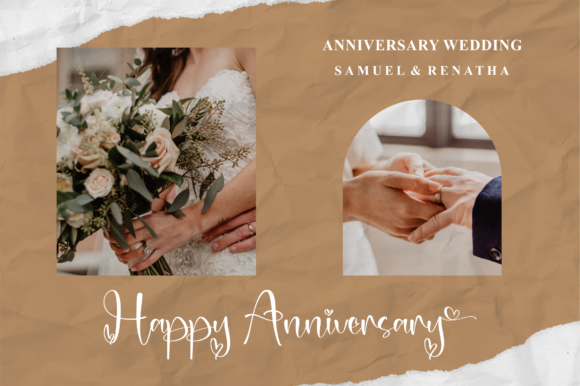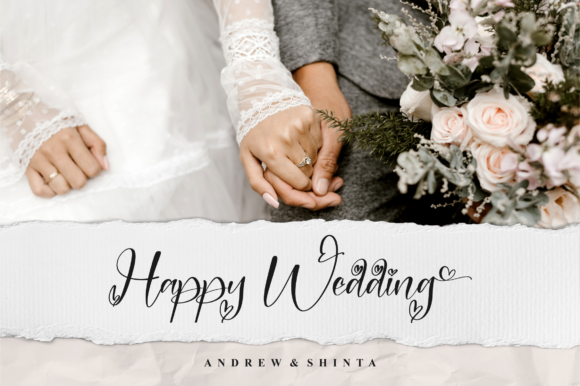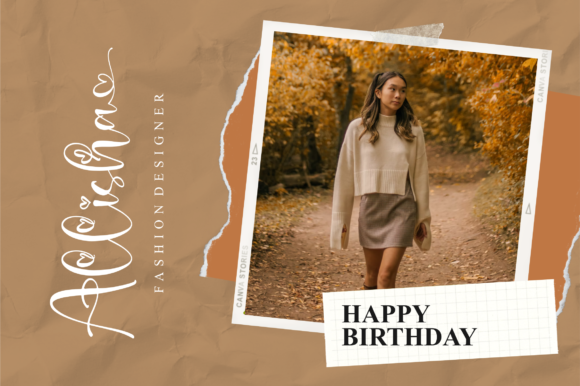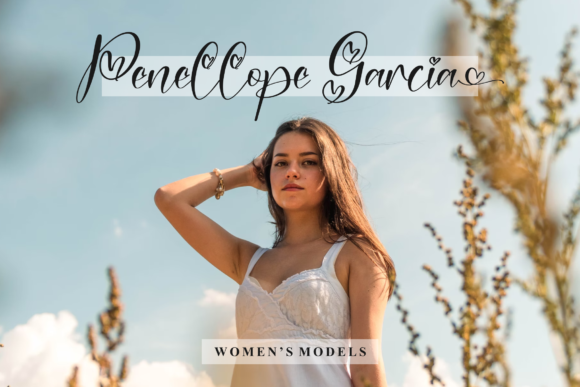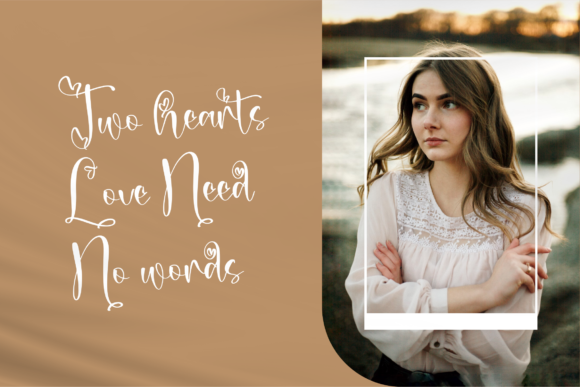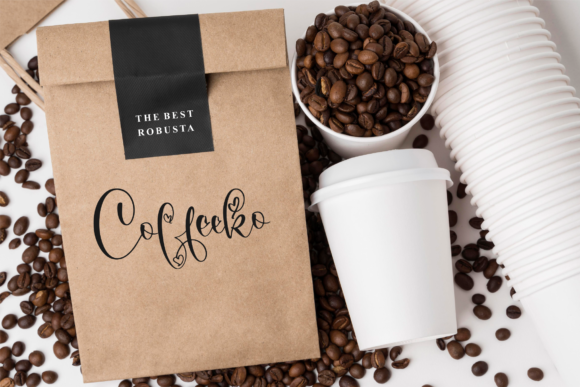
Introduction to Malista Font
Malista is a gorgeous and delicate script font.
It is a suitable for any projects such as: logos, branding projects, homeware designs, product packaging, mugs, quotes, posters, and all your other lovely projects that need a beautiful script taste This font is PUA encoded which means you can access all of the glyphs and swashes with ease.